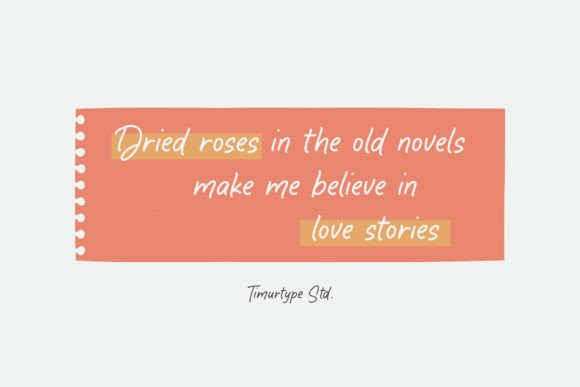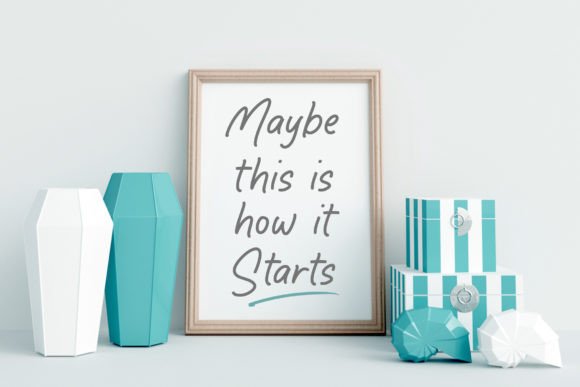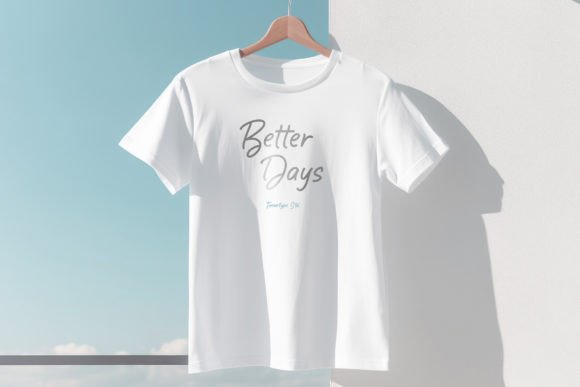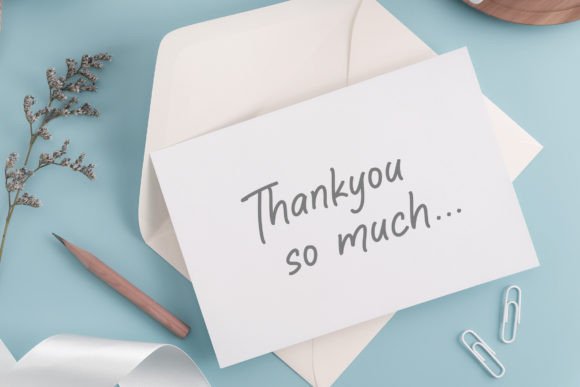
Dreamy Wallabies Font
Introduced by Timurtype Studio!
Dreamy Wallabies is a Fun Quotable Handwritten Font
This font is a whimsical and playful choice for your design projects. With its quirky and energetic letterforms, this font brings a sense of joy and creativity to any text. The hand-drawn style and uneven lines give it a charming and imperfect look, adding character to your designs. The Dreamy Wallabies font is perfect for creating inspirational quotes, posters, and social media graphics that are meant to uplift and inspire. Embrace the fun and lightheartedness of the Dreamy Wallabies handwritten font and let your creativity soar